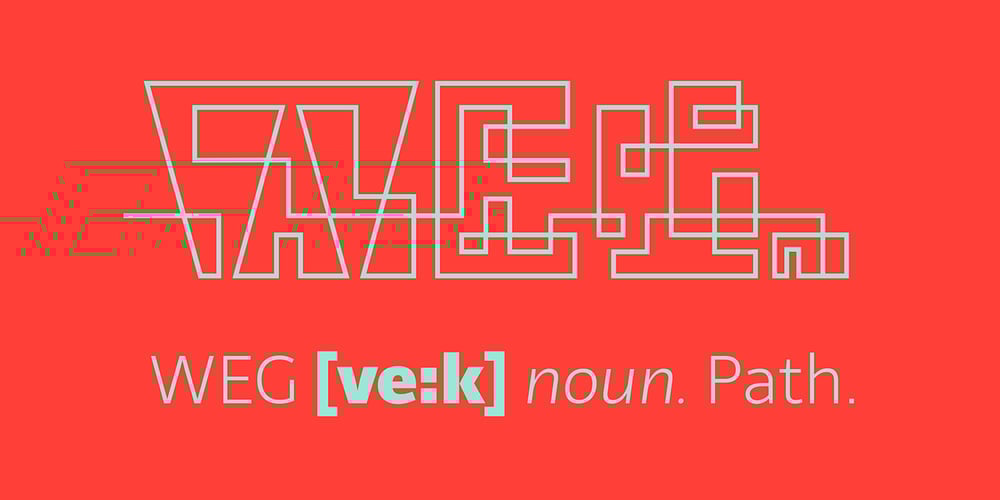
Weg Font Family was designed by Carolina Giovagnoli and published by Huerta Tipográfica. Weg contains 3 styles and family package options. WEG* font is an experimental type system where legibility isn’t the focus.This project studies how glyphs are constructed and how their ductus can be modified.I explored how far I can move the limits if I don’t worry about the legibility.In Weg, letters are built by a single line that connects them, along with words and paragraphs. When weight decreases, the legibility of the signs increases.This is the first stage. It’s a project in expansion.The set contains uppercase, lining figures and basic punctuation in three weights: Regular, Light and Thin. The current supported languages are Spanish, Guaraní and English. If you need any other language, please let me know. I would like to expand the character set.Second stage projectWEG is an experimental in-expansion font family.Here I present to you the second stage.I’m planning the first upgrade for middle 2021.I’m preparing a pattern set for July 2021. Here you can see the first four patterns.If you buy the font before July 2021, you’ll get this upgrade!• Second stage April – July 2021: pattern set (first four ready).• This upgrade will be available on August 2021.